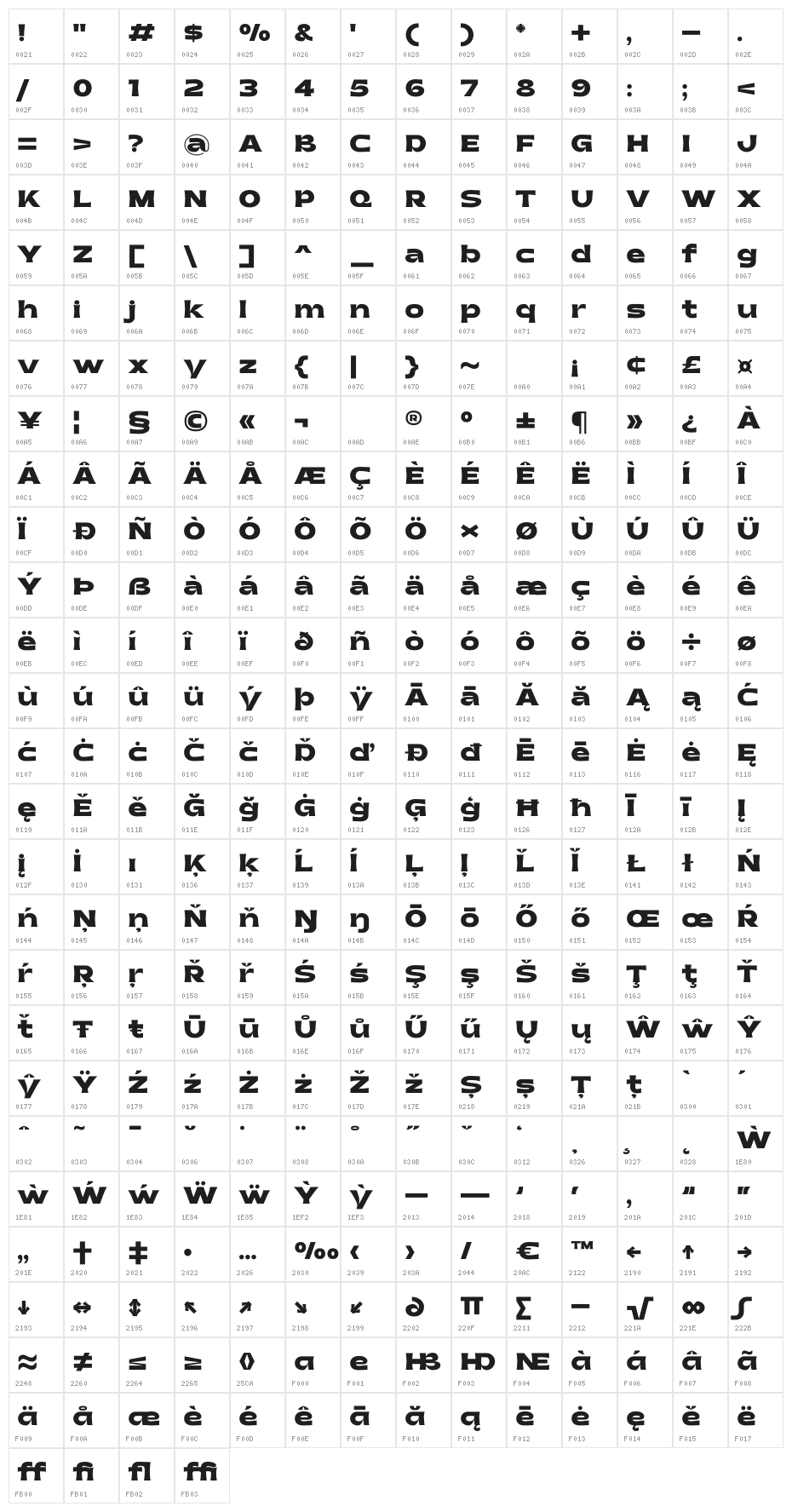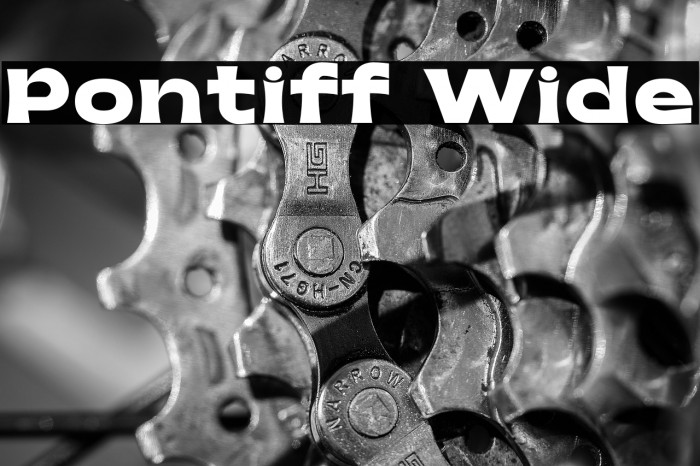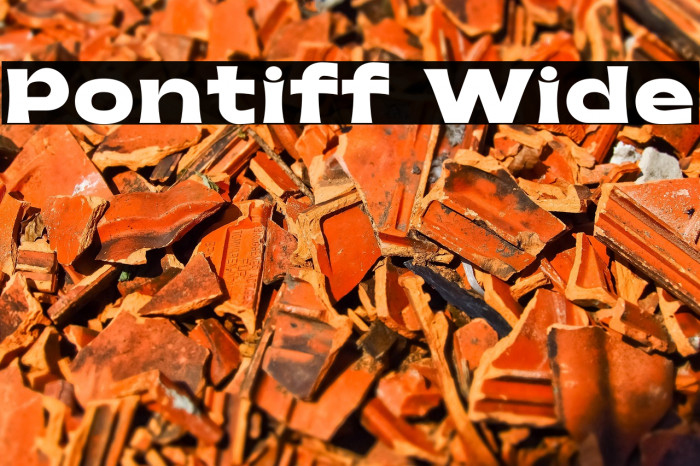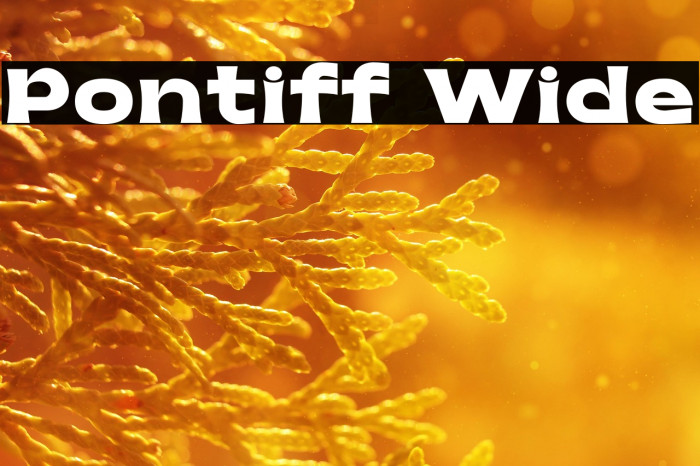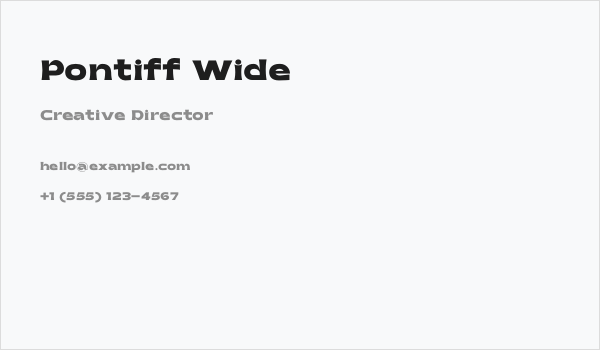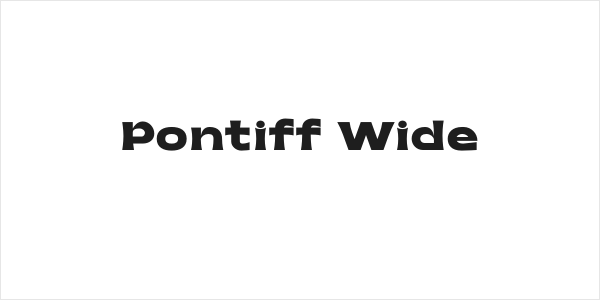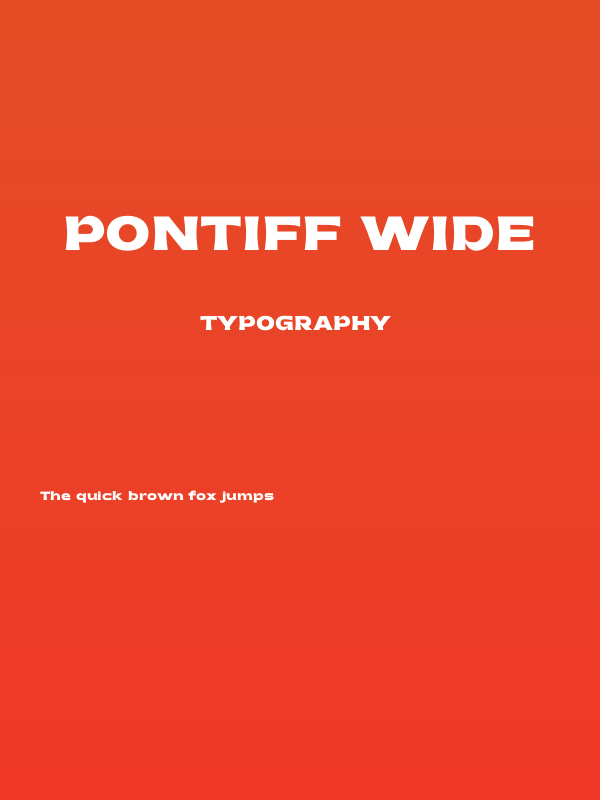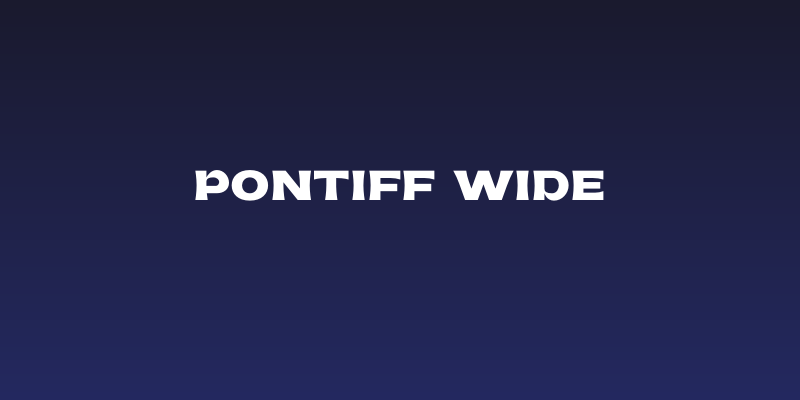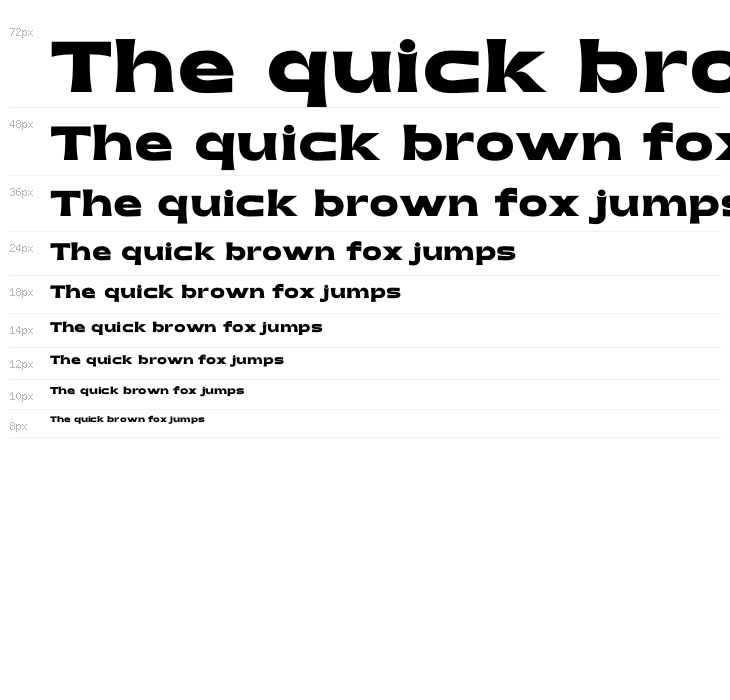
Pontiff Wide Font
Pontiff Wide Description
This font features a bold and wide design, characterized by its strong presence and unique geometric shapes. The uppercase letters are particularly striking, with angular cuts and a modern flair that make them stand out. The lowercase letters maintain a consistent style, offering a harmonious balance with the uppercase. Numbers and special characters follow the same bold and wide aesthetic, ensuring uniformity across all glyphs. The font's design is both contemporary and versatile, making it suitable for various creative applications.
| Proposed Projects | Ideal for branding, poster design, headlines, and any project requiring a strong visual impact. |